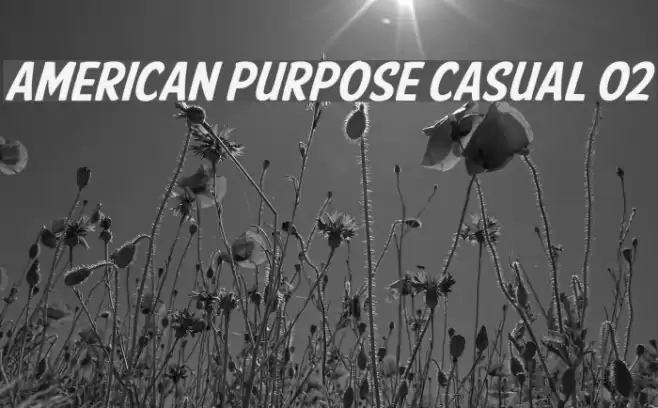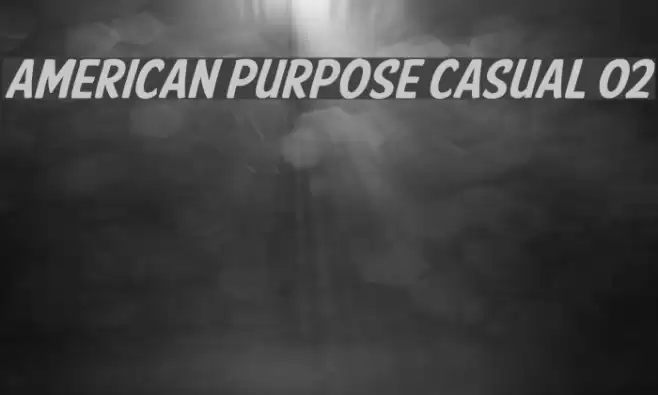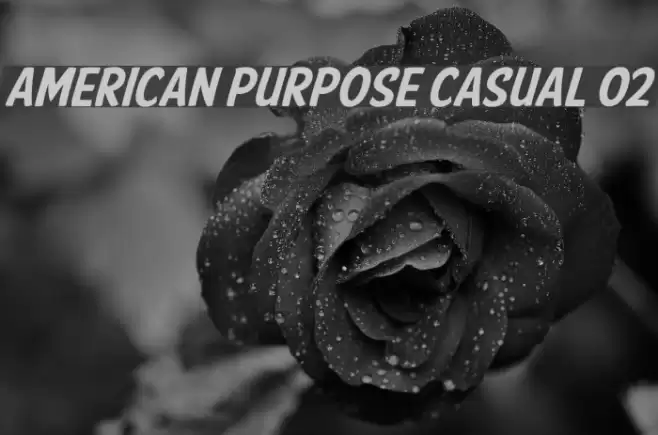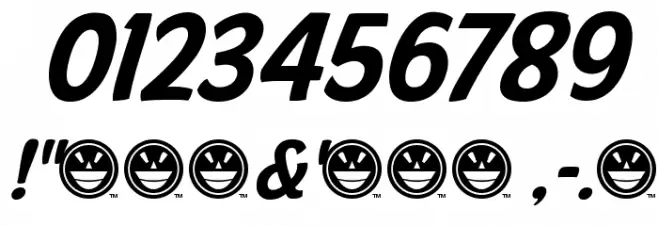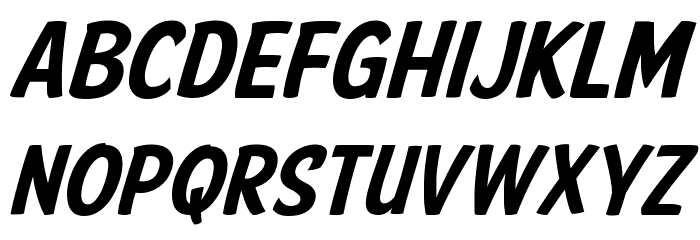
American Purpose Casual 02
This font features a bold and dynamic style with a slight italic slant, giving it a sense of movement and energy. The characters are well-defined with consistent stroke thickness, providing a strong visual impact. The uppercase letters exhibit a modern flair, while the lowercase letters maintain readability. Numbers are clear and bold, making them suitable for attention-grabbing displays. Special characters are included, adding versatility to the font's application. Overall, this font combines a contemporary look with a casual, approachable feel, making it ideal for a variety of design projects.
A bold, slightly italic font with a modern and dynamic style.
- Proposed Projects: Ideal for branding, advertising, posters, and any project requiring a bold, energetic typeface.
- Use Case: Headlines, Logos, Posters